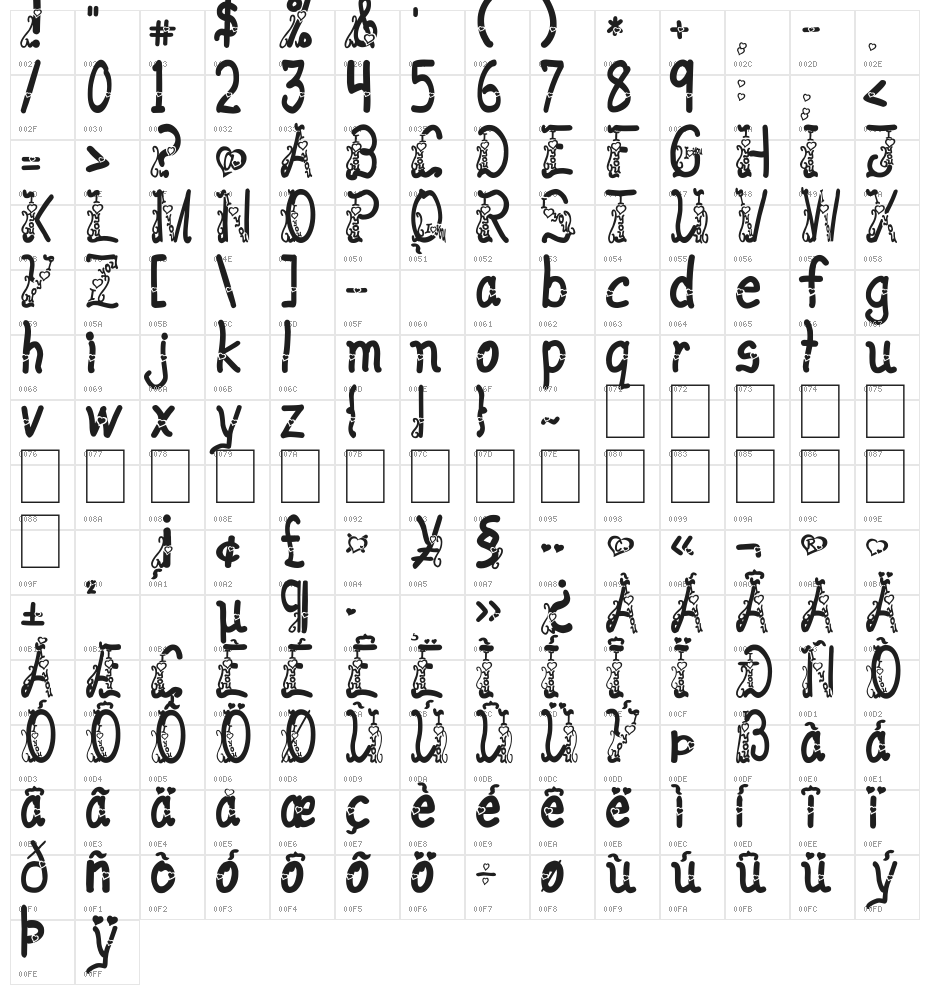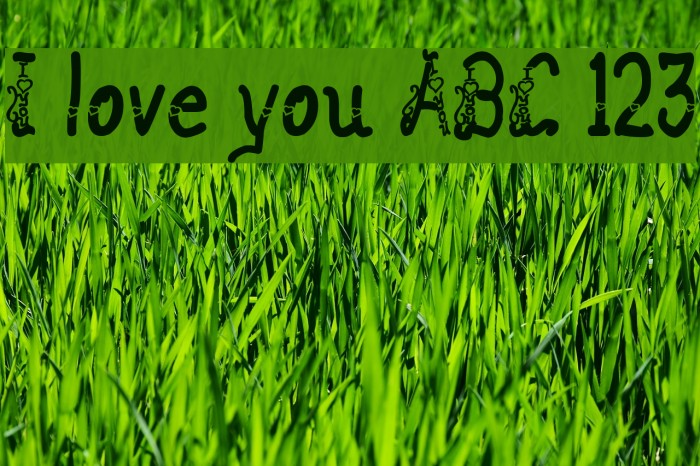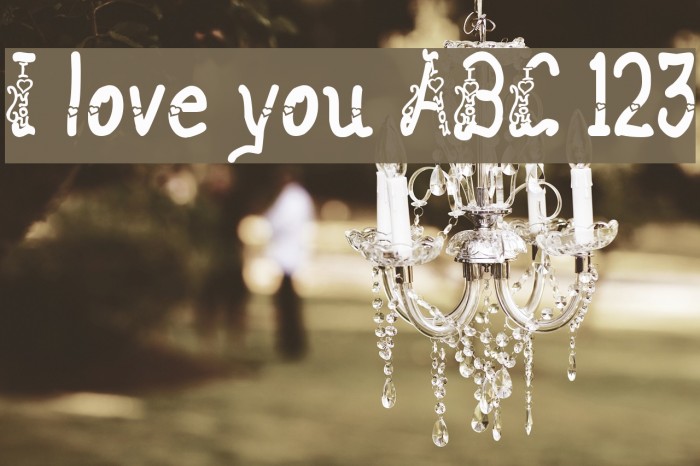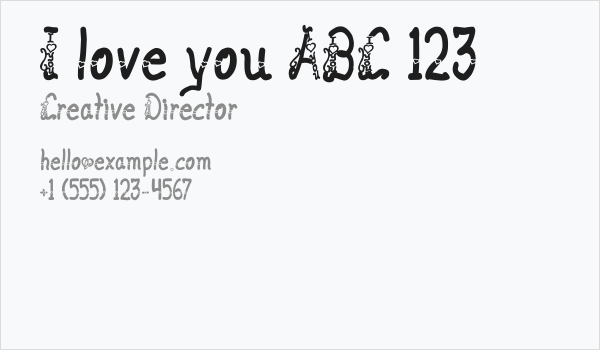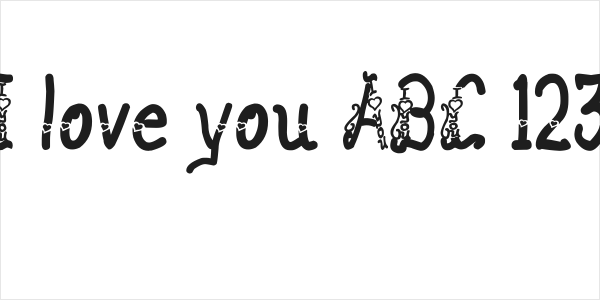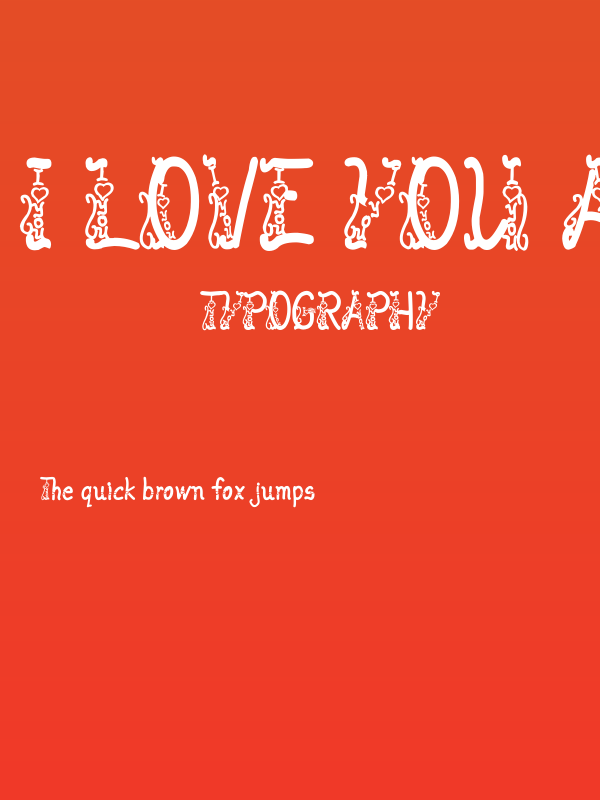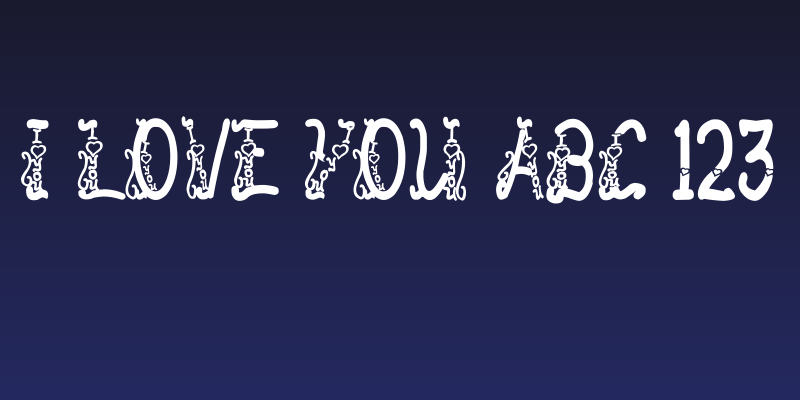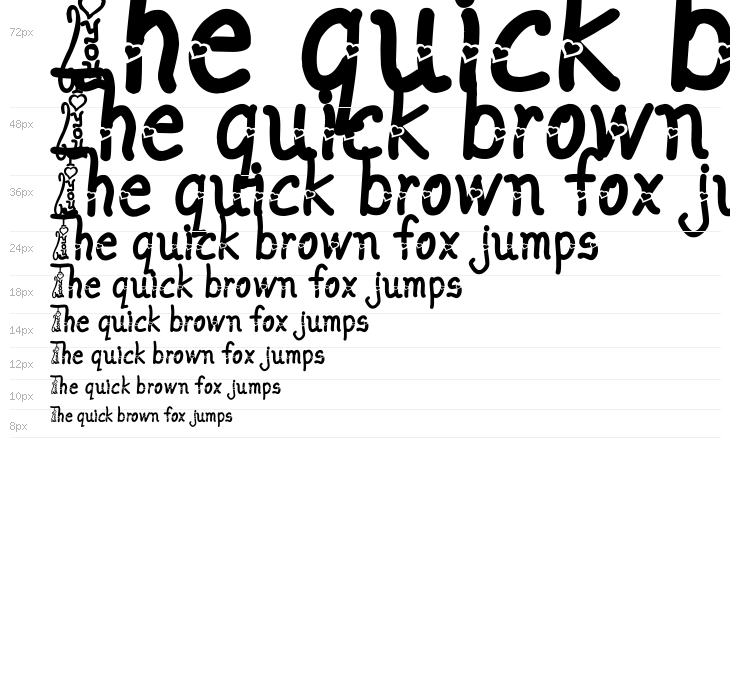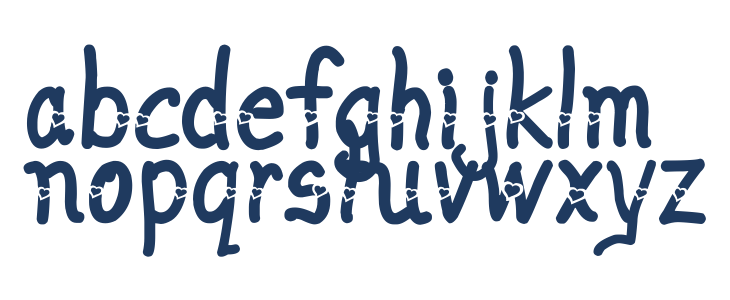
I love you ABC 123 Font
I love you ABC 123 Description
This whimsical and decorative font features playful heart motifs integrated into each character, creating a romantic and charming appearance. The letters are bold and rounded, with a consistent stroke width that maintains readability while adding a touch of elegance. The uppercase and lowercase letters are well-balanced, and the numbers and special characters follow the same design theme, making the font cohesive. The heart elements are strategically placed to enhance the visual appeal without overwhelming the text, making it suitable for designs that require a touch of love and creativity.
| Proposed Projects | Ideal for wedding invitations, Valentine's Day cards, romantic event posters, and love-themed merchandise. |